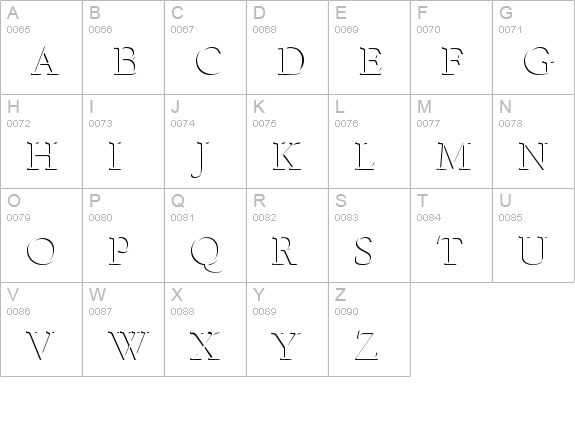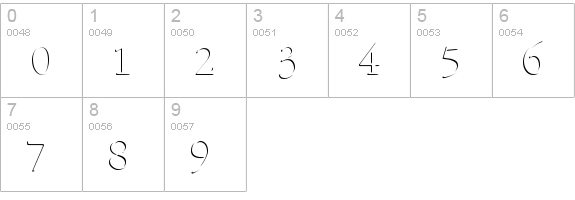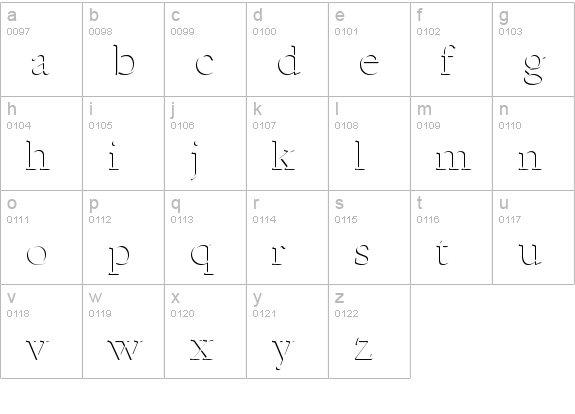
Emboss-Normal is the standard, neutral variant in the Emboss typeface family \xE2\x80\x94 well suited to general body text, paragraphs, and standard typographic work.
Emboss-Normal font is a stylish and versatile typeface that exudes elegance and sophistication. Its unique embossed design adds a touch of class to any project, making it perfect for invitations, posters, branding, and more. This font is free to download at FontsMarket.com, where you can easily access and incorporate it into your creative works. With its timeless appeal and modern twist, Emboss-Normal font is sure to elevate your designs and leave a lasting impression.